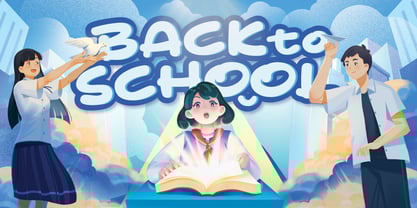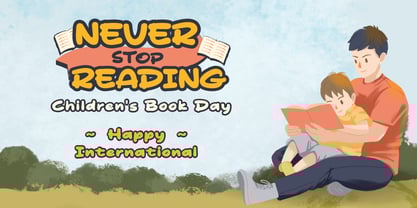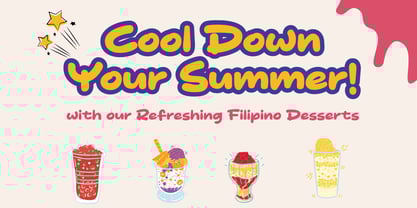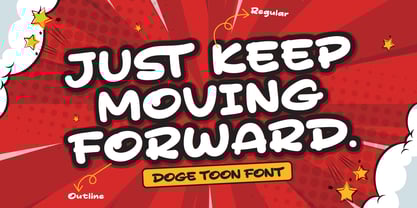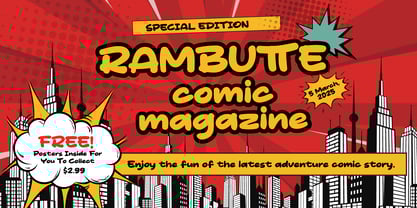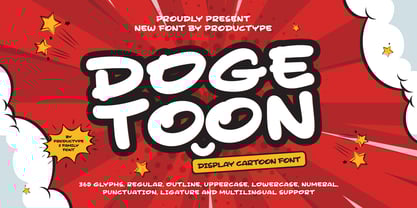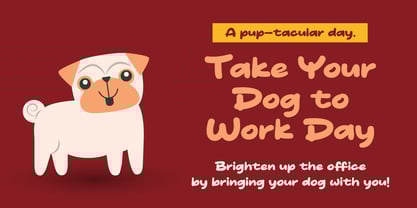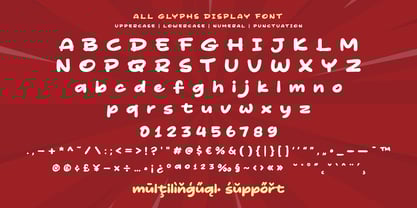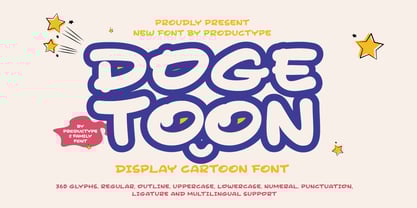
Doge Toon
by Product Type
The Doge Toon Font Family was designed by Lita Faolina and published by Product Type. Doge Toon contains 2 styles and family package options. More about this family
Bring a burst of fun and personality to your designs with Doge Toon, a lively cartoon display font inspired by the whimsical charm of internet culture. With its bold, rounded letterforms and playful curves, Doge Toon captures the essence of humor and lightheartedness, making it perfect for children's books, comic strips, playful branding, memes, and more.
Whether you're designing a logo for a kid-friendly brand, creating eye-catching headlines, or adding a touch of joy to your social media graphics, Doge Toon delivers a delightful visual impact. Its versatile style ensures readability while infusing your projects with a sense of fun and creativity.
Designers: Lita Faolina
Foundry: Product Type